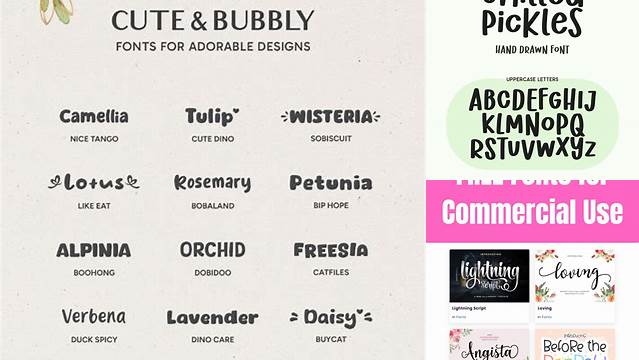
Cute Free Fonts: Commercial Use (2024)
Hey guys! Finding the perfect font can sometimes feel like searching for a needle in a haystack, especially when you need something cute and also safe to use for your business. Let's dive into the world of cute free fonts for commercial use! No more stressing about licensing – we’re covering fonts that you can use for everything from logos to marketing materials without spending a dime.
1. What Makes a Font “Cute”?
So, what exactly makes a font cute? Well, it’s pretty subjective, but generally, cute fonts often have rounded edges, playful curves, and a friendly, approachable vibe. Think bubbly letters, whimsical serifs, and maybe even some hand-drawn qualities. When choosing cute free fonts for commercial use, you want something that will catch the eye and make your designs pop. Consider what kind of message you are trying to send. Is it playful? Elegant? A touch of both? Your font should reflect the feeling you want your audience to experience. Also, think about legibility. A super cute font might look amazing, but if people can’t easily read it, it's not going to be very effective. Therefore, you need to balance cuteness with practicality to ensure that your designs are both attractive and functional. By keeping these factors in mind, you'll be well on your way to finding the perfect cute font for your commercial projects.
2. Top 5 Cute Free Fonts for Commercial Use
Alright, let’s get to the good stuff! Here are five awesome cute free fonts for commercial use that you should definitely check out:
- KG Red Hands: This font has a playful, hand-lettered feel that’s perfect for adding a personal touch to your projects. It's super versatile and looks great on everything from greeting cards to website headers.
- Amatic SC: A condensed sans-serif font that's tall, quirky, and fun. It’s great for headlines and titles where you want to make a statement without being too serious.
- Bubblegum Sans: As the name suggests, this font is bubbly, cheerful, and full of personality. It's ideal for designs aimed at kids or anything that needs a lighthearted touch.
- Patrick Hand: Designed to look like handwriting, this font is clean, legible, and friendly. It’s perfect for body text or anywhere you want to create a casual, approachable feel.
- Luckiest Guy: This font has a vintage comic book vibe that’s bold, playful, and attention-grabbing. Use it for logos, posters, or anything that needs a bit of retro flair.
These are just a few examples, and there are tons more cute free fonts out there waiting to be discovered. The key is to experiment and find the ones that best suit your style and project needs.
- Open Source (OFL): This is the most permissive type of license. It allows you to use the font for pretty much anything, including commercial projects. You can even modify and redistribute the font.
- Free for Commercial Use: This means you can use the font in your business projects without paying any fees. However, you might not be allowed to redistribute the font itself.
- Personal Use Only: This is the one to watch out for! It means you can only use the font for non-commercial projects, like school assignments or personal crafts. Using it for anything business-related would be a no-no.
When in doubt, look for the license information on the font’s download page. If it’s not clear, reach out to the font’s creator to ask for clarification. It's always better to double check when using free fonts for commercial use.
5. How to Use Cute Fonts Effectively
Okay, you've found some adorable fonts! Now what? Here are some tips on how to use them effectively:
- Pairing: Don’t be afraid to mix and match fonts, but do it carefully. A good rule of thumb is to pair a cute display font with a more neutral, legible font for body text. This creates a nice contrast and keeps your designs balanced.
- Hierarchy: Use different font sizes and weights to create a visual hierarchy. This helps guide the reader’s eye and makes your designs more engaging.
- Color: Choose colors that complement your font and overall design. Pastel colors often work well with cute fonts, but don’t be afraid to experiment with bolder hues.
30. The Future of Typography and Cute Font Design
The field of typography is continually evolving, and new technologies and design trends are shaping the future of font design. We can expect to see more innovative and creative cute fonts emerge, pushing the boundaries of typography and design. Variable fonts, which allow for greater flexibility and customization, will likely become more prevalent. Artificial intelligence may also play a role in font design, automating certain aspects of the process. Staying informed about the latest trends and technologies will help you stay ahead of the curve and create designs that are both visually appealing and cutting-edge. The future of typography is bright, and cute fonts will undoubtedly continue to play a significant role in the world of design.